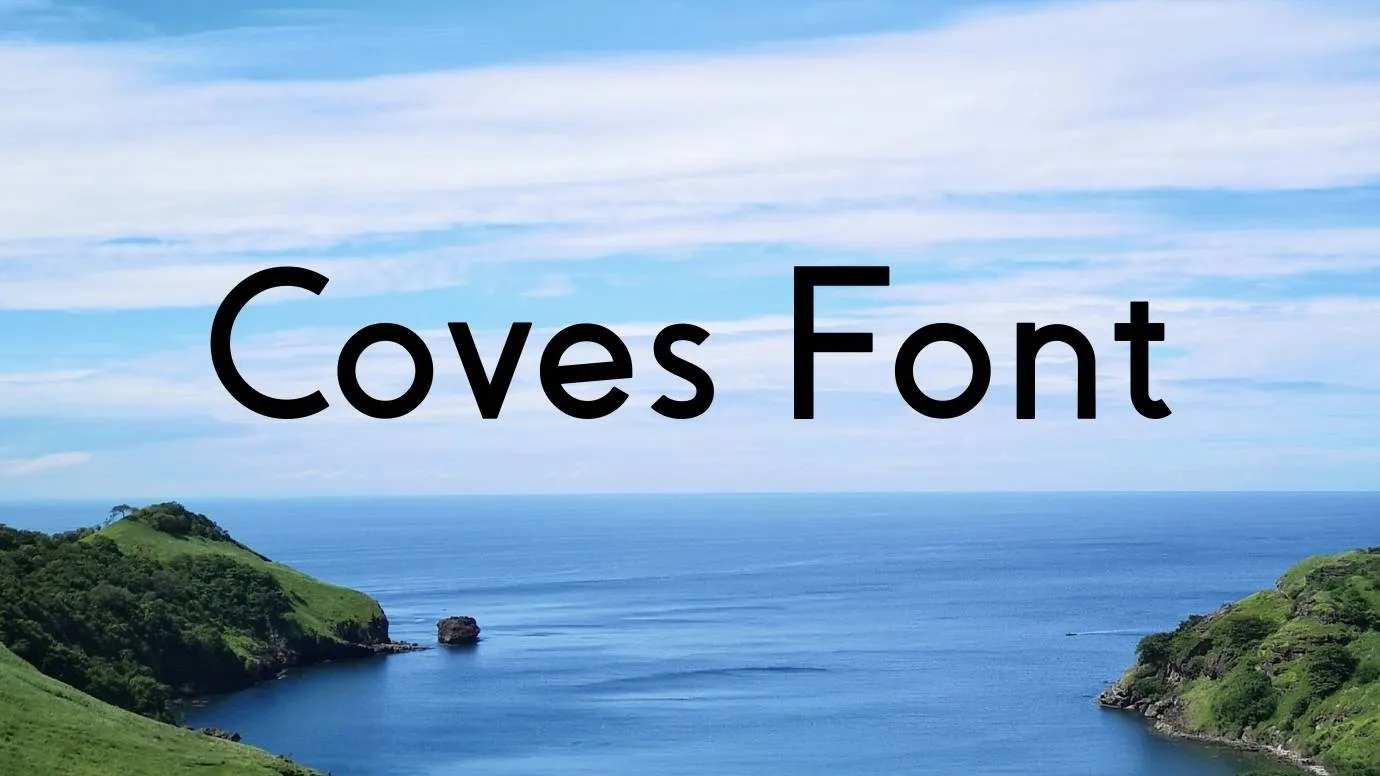
Coves is a new typeface that belongs to the Sans-serif typeface. It comes in two weights including light and bold. This collection contains every script and serif font that completes each one perfectly.
Each character makes an astonishing design and gives eye-catching designs. This typeface is suitable for the Discord Font pairing in the Sans-serif typeface family.
Coves Font
DesignerJack Harvatt
TypeSans-serif